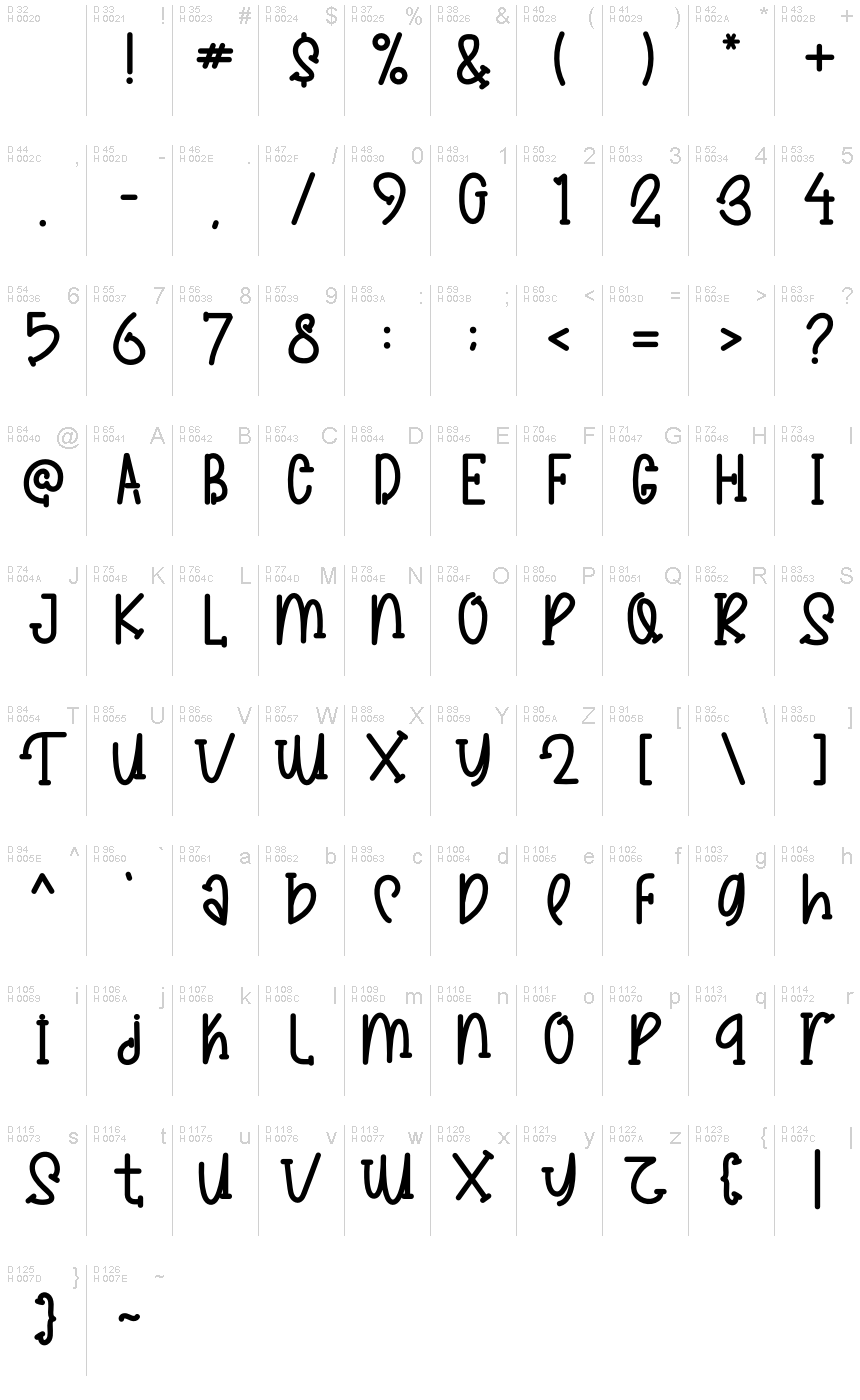
HAPPY FATHER
HAPPY FATHER, designed by Inermedia Studio, is a handwritten font that exudes warmth and charm. Its semi-light weight adds a delicate touch, making it both inviting and highly readable. The aesthetic appeal of HAPPY FATHER lies in its balance between casual elegance and playful quirkiness, ensuring that it stands out in various creative contexts.
This font's fluidity captures the authenticity of handcrafted artistry while maintaining clean lines for digital clarity. The effortless flow of HAPPY FATHER makes it an excellent choice for personal branding, invitation cards, product packaging, and editorial designs seeking a touch of personality.
With HAPPY FATHER, designers have access to a versatile typeface that is approachable yet distinctive—perfect for projects aiming to convey intimacy with a stylish twist.